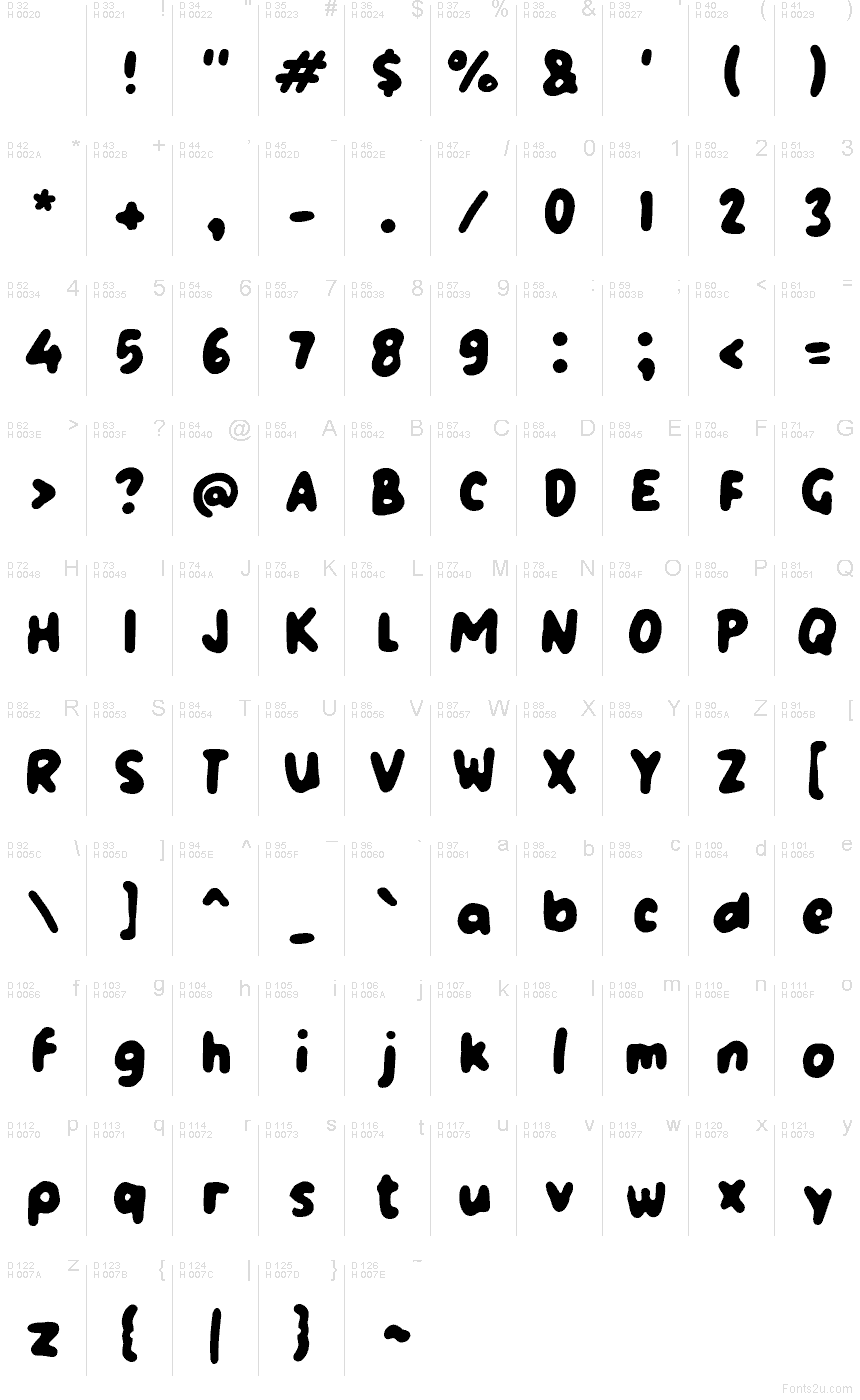
Waamista
Waamista font by wepfont.com is a free cartoon display typeface with big, blobby letters that look like they’ve been squeezed out of a marker pen. The shapes are chunky, soft, and slightly uneven, giving every word a bouncy, hand-drawn energy. Its bold, inky presence reads clearly even at smaller sizes, while the rounded forms keep it friendly and approachable rather than shouty.
Using Waamista, you can bring playful personality to kids’ book covers, birthday invitations, candy packaging, YouTube thumbnails, game titles, and classroom posters. This free font shines when used large and loud, with short phrases that need to pop off the page. Pair it with a clean, simple sans serif for body text to keep the fun headline feel nicely grounded.